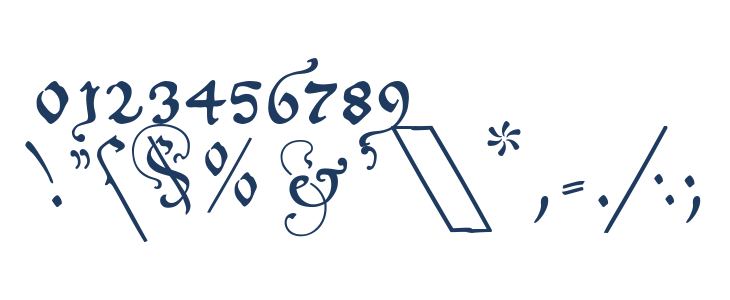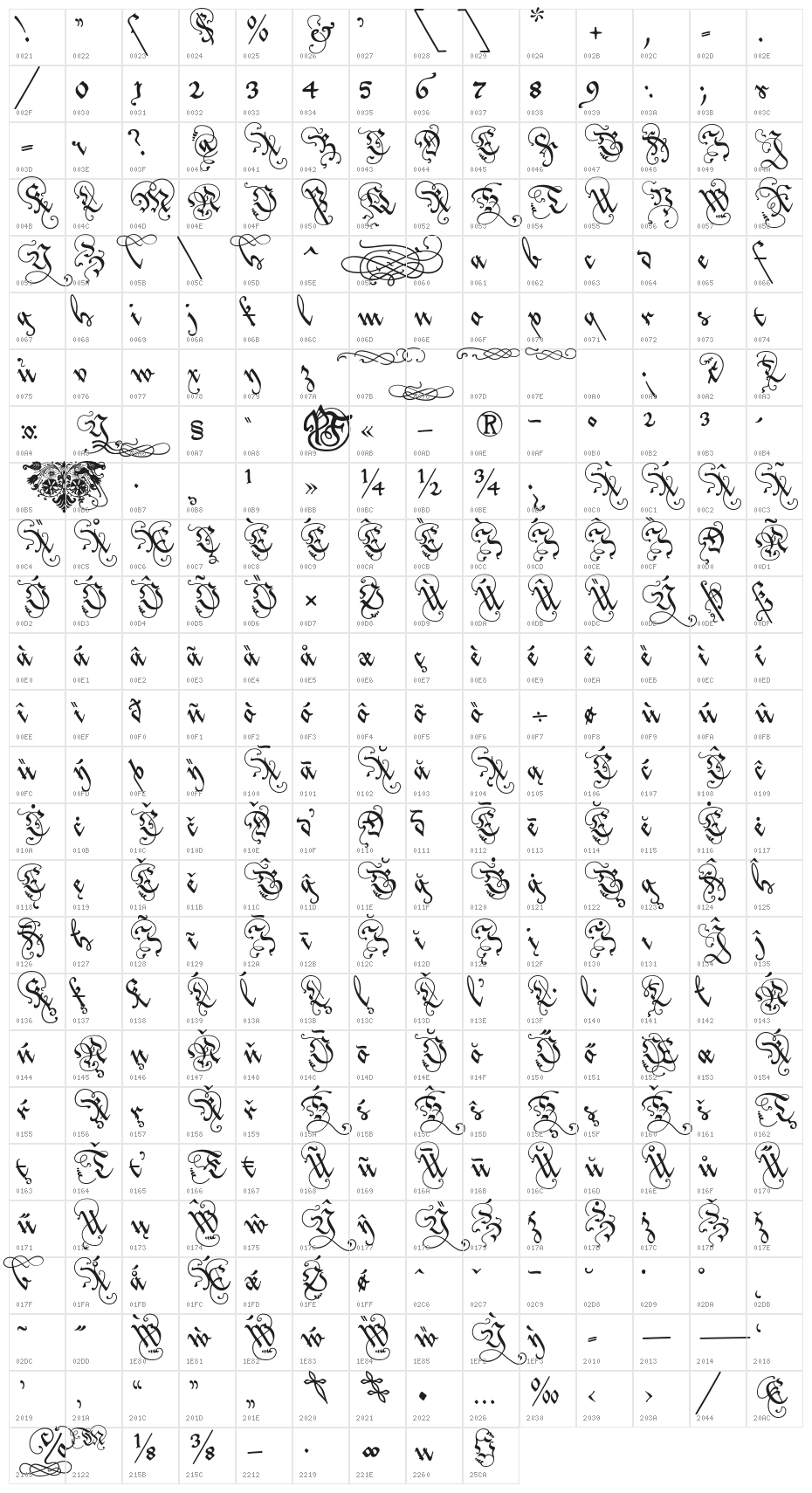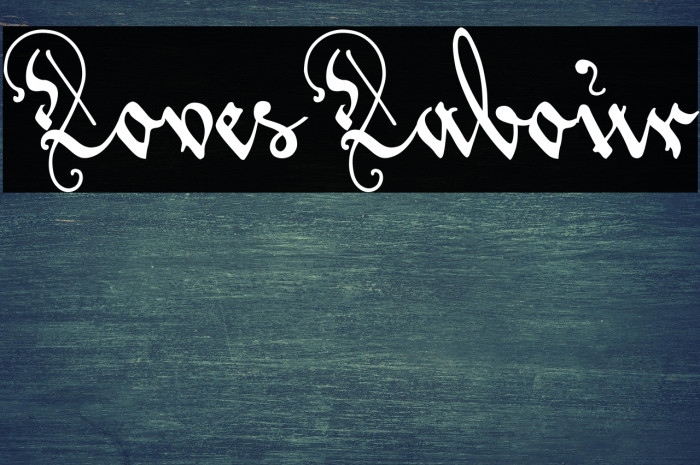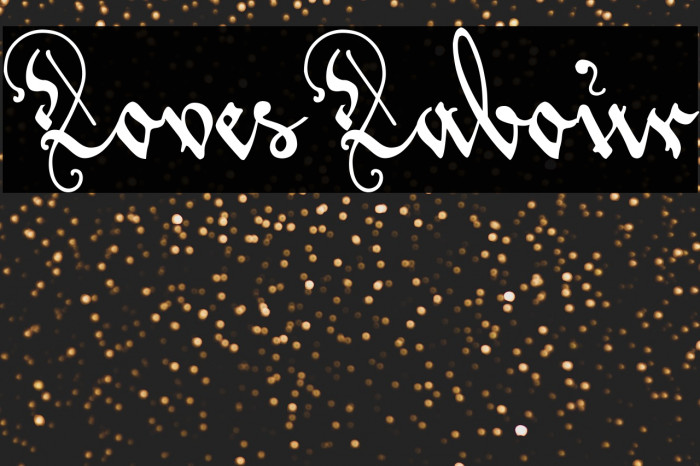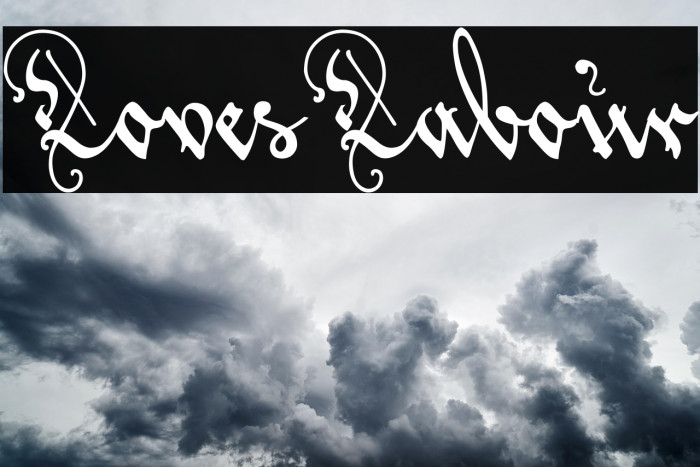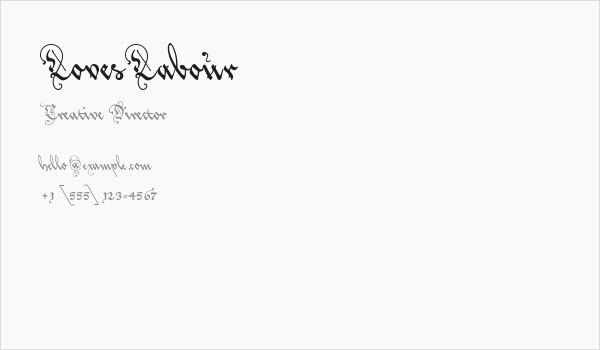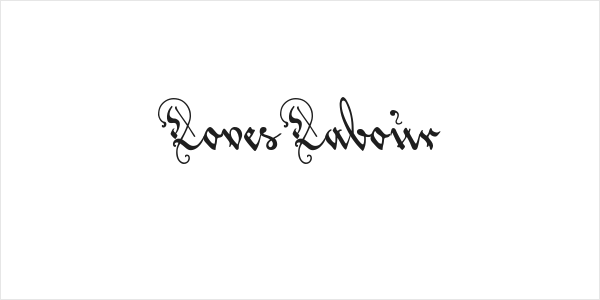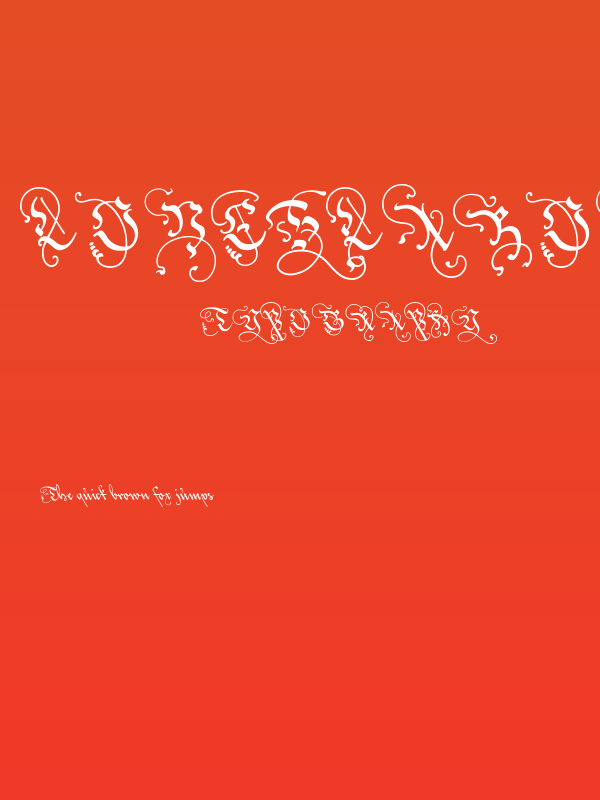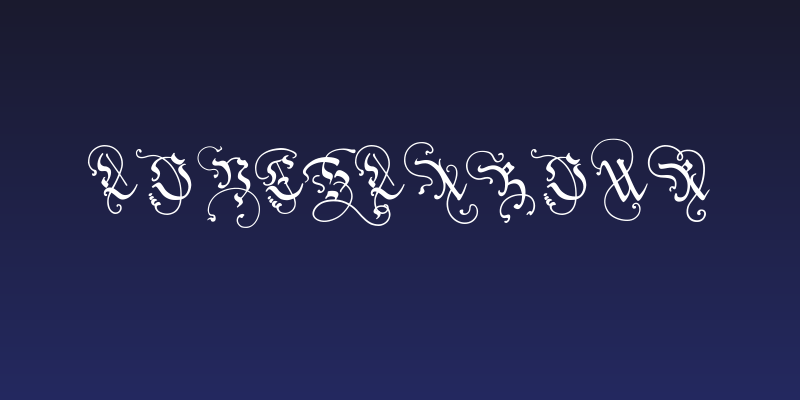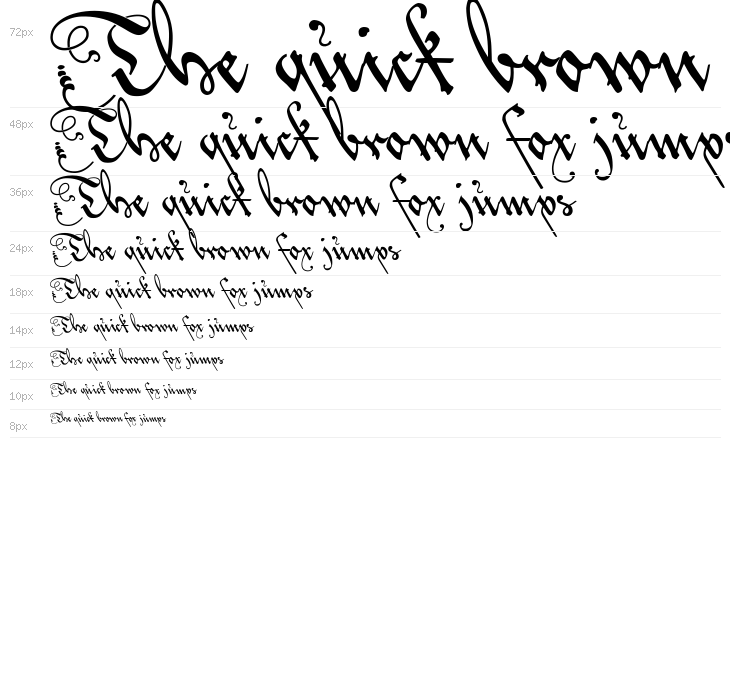
LovesLabour Font
LovesLabour Description
This font is an intricate and highly decorative script that exudes elegance and sophistication. The uppercase letters are adorned with elaborate swirls and flourishes, giving them a regal and ornate appearance. The lowercase letters maintain a flowing, cursive style that complements the uppercase, yet they are slightly more restrained in their embellishments. The numbers and special characters follow the same ornate theme, with each character featuring unique decorative elements. The overall design is reminiscent of calligraphy, with a strong emphasis on artistic expression and visual impact.
Use CaseLogos, Invitations, Decorative headings
Proposed ProjectsIdeal for wedding invitations, luxury branding, artistic projects, and decorative headings.